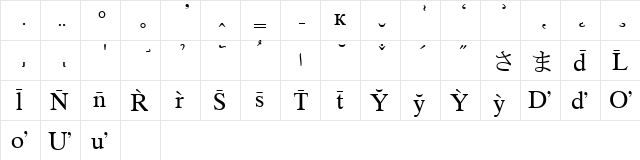
LotusWP Int B Roman
Design Context for LotusWP Int B Typeface
LotusWP Int B takes a measured approach to typography — its balanced proportions and neutral character make it a reliable workhorse for both digital and print work.